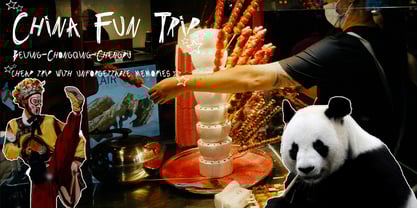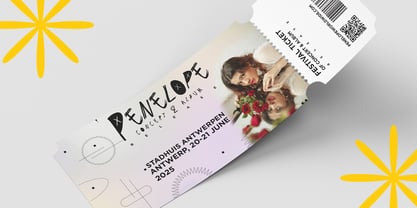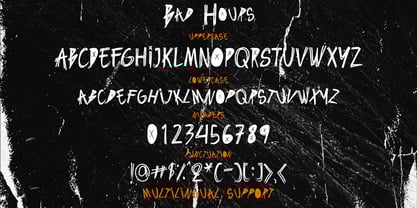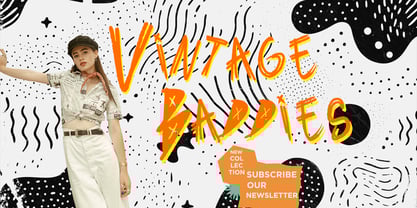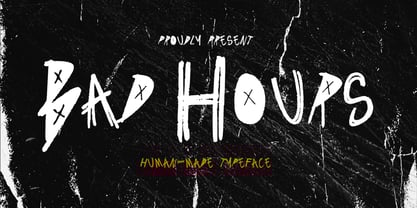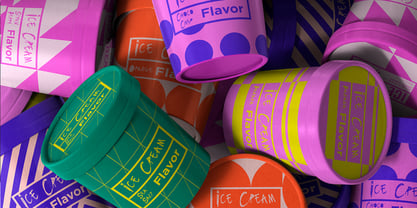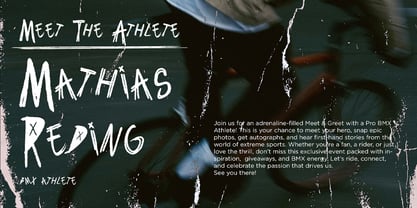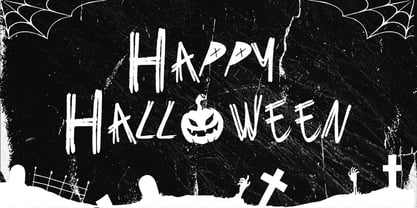
Bad Hours
Bad Hours is a raw, hand-crafted typeface that blends modern street energy with luxury bold style. Designed to stand out, it features jagged strokes, imperfect textures, and high-contrast shapes—making it perfect for logo design, modern food branding, and elegant yet edgy packaging.
This font thrives in projects that need an unapologetic presence. Whether you’re creating luxury streetwear logos, crafting gritty food menus, or designing modern signage, Bad Hours delivers a visual punch that feels authentic, stylish, and memorable.
Its luxury bold character ensures that every word looks powerful, while the hand-drawn details keep it unique and human.
💡 Perfect For:
• Luxury Logo Design – Urban-inspired branding with a premium twist
• Modern Food Branding – Burgers, coffee shops, or craft beer labels
• Elegant Bold Headlines – Magazine covers and poster titles
• Luxury Streetwear & Merchandise – Apparel branding and labels
• Event Promotions & Signage – Music festivals, pop-up shops, and nightlife ads
🧩 Font Features:
• Hand-Crafted, Textured Letterforms
• All Caps with Alternates
• Punctuation & Numerals Included
• High Legibility for Print and Digital
Bad Hours is not just a typeface—it’s an attitude. With its luxury bold impact and modern edge, it’s perfect for brands that want to mix elegance with raw creative energy.